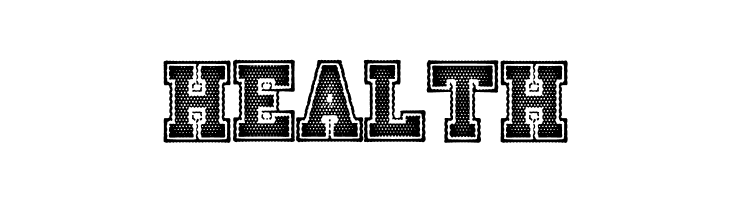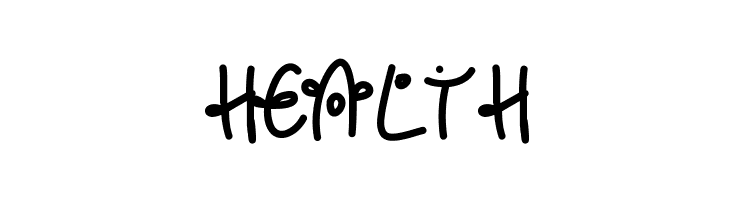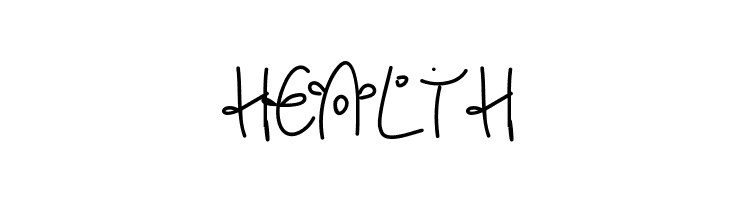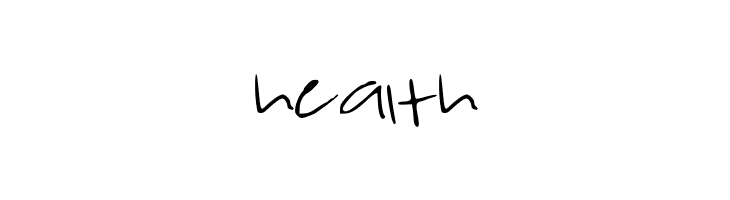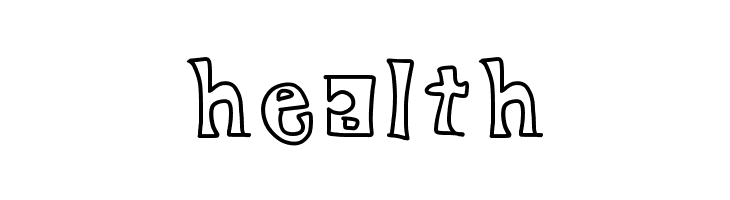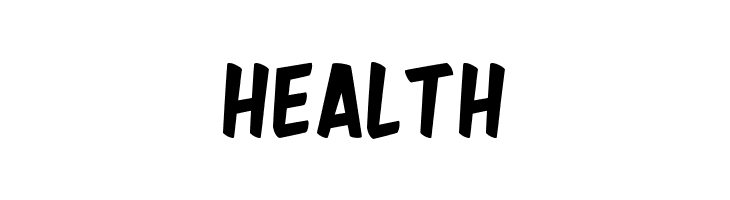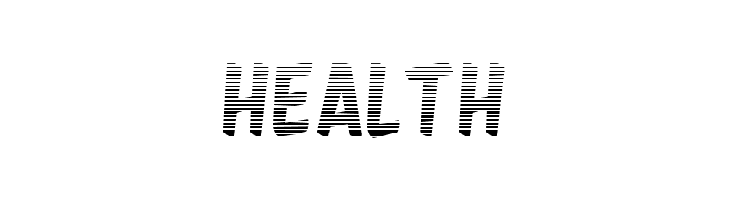
Hand-drawn animal and nature doodle font with a whimsical, decorative style.
Bold, playful font with a bubbly appearance.
Playful and bold font with rounded edges.
Bold and playful with irregular shapes.
Whimsical, cartoon-style decorative font with unique character illustrations.
Cartoon face-based decorative font with playful expressions.
A whimsical, hand-drawn cartoon face illustration set.
Whimsical grim reaper dingbat icons in bold silhouette style.
Expressive handwritten script font.
Bold, whimsical display font with hand-drawn, uneven shapes.
Bold, rounded, playful display font with a cartoonish, hand-drawn style.
A bold, rounded, playful display font with a whimsical feel.
Hand-drawn, outlined display font with a sketchy, three-dimensional look.
Distressed, bold display font with an industrial, rugged style.
Bold, distressed display font with a grunge texture.
Bold, jagged display font with sharp, irregular edges.
Bold, rounded, playful display font with a bubbly, informal style.
Bold, rounded, playful sans-serif with a friendly vibe.
Bold, playful display font with exaggerated curves and a whimsical style.
Casual handwritten font with playful, uneven strokes.
Bold, slanted handwritten script with energetic brush strokes.
Handwritten script font with elegant, flowing strokes.
Cartoon animal face dingbat font with bold, playful style.